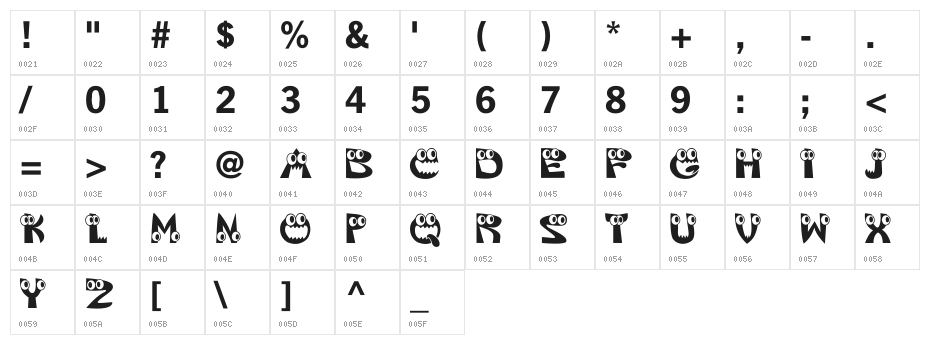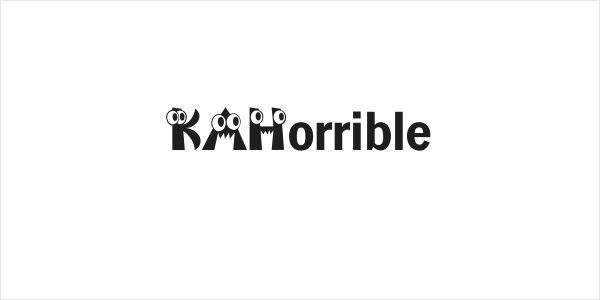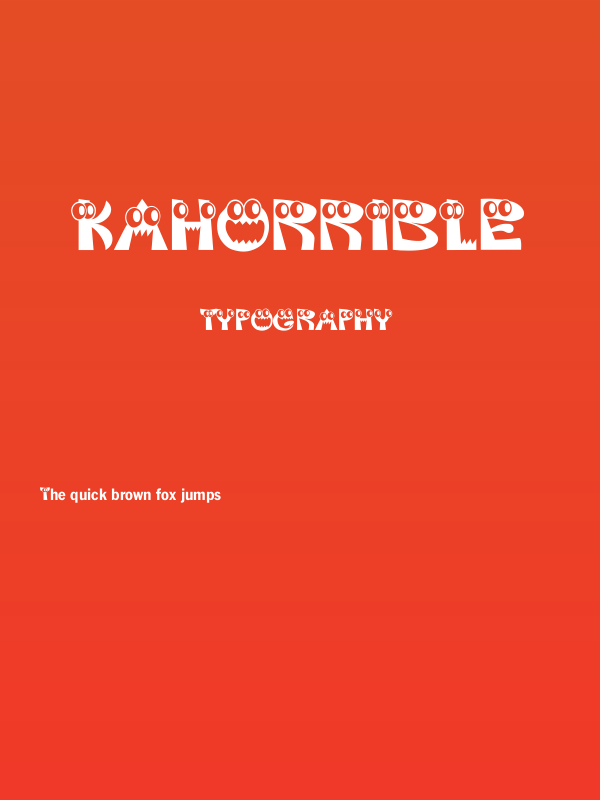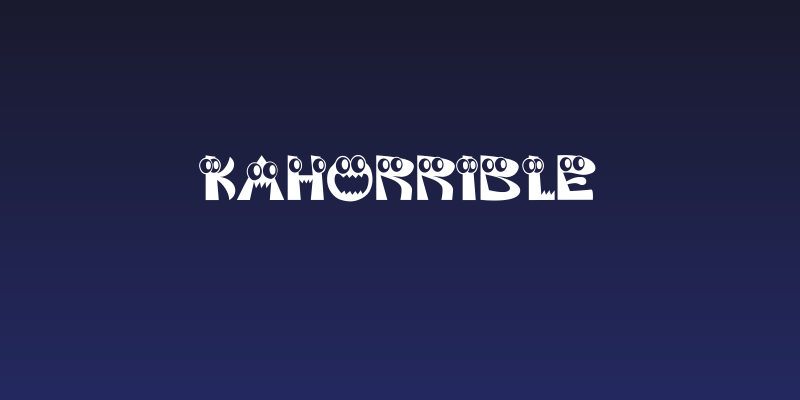
KAHorrible Font
KAHorrible Description
This playful and quirky font features uppercase letters with cartoonish eyes and mouths, giving each character a lively and animated appearance. The lowercase letters and numbers are bold and straightforward, providing a stark contrast to the whimsical uppercase design. The font includes a full set of numerals and a variety of special characters, making it versatile for creative projects. Its unique style is perfect for capturing attention and adding a fun, lighthearted touch to any design.
| Proposed Projects | Ideal for children's books, comic strips, playful branding, party invitations, and any project requiring a fun and engaging typeface. |